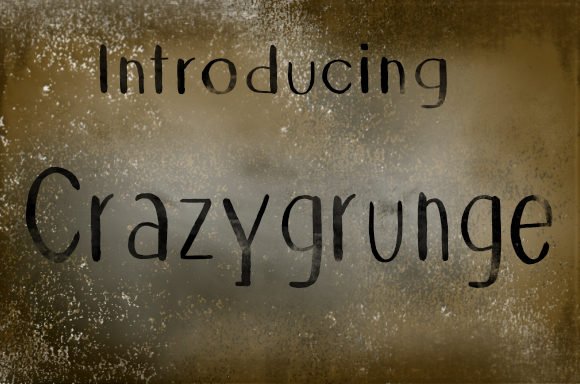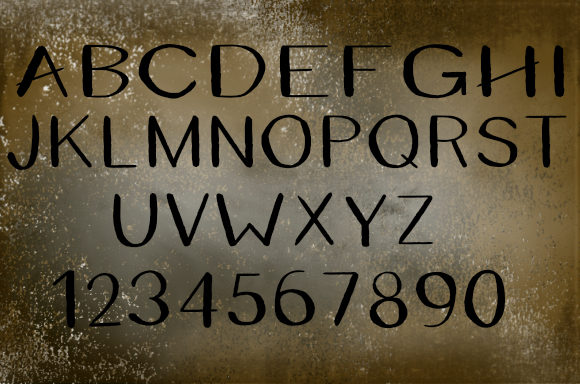
Get Ready to Unleash Your Dark Side
As a designer, have you ever stared at a blank canvas, trying to conjure up the perfect font to match your eerie mood? You’re not alone. We’ve all been there, searching for that one font that screams “spooky season” and sets the tone for our twisted creations.
That’s where the Crazygrunge Font comes in – a handwritten masterpiece that’s perfect for unleashing your dark side. With its bold, uneven strokes and eerie charm, this font is a must-have for designers looking to create haunting horror-themed designs that will leave a lasting impression.
Whether you’re designing a horror movie poster, a spooky Halloween invitation, or a gothic-inspired website, the Crazygrunge Font is a valuable tool that will add an extra layer of depth and atmosphere to your work. So why settle for a generic font when you can unleash the darkness with the Crazygrunge Font?
Crazygrunge Font Key Features
- Font Family: Crazygrunge
- Size: 128 glyphs (including uppercase and lowercase letters, numbers, and punctuation)
- Resolution: High-resolution font, suitable for print and digital use at 300 DPI or higher
- Unique Characteristics: Distressed, grungy texture with irregularities and imperfections, giving a worn and vintage feel
- Language Support: Multilingual support, including Latin, Cyrillic, and Greek alphabets
Crazygrunge Font Review
I recently had the chance to work with the Crazygrunge Font, and I have to say it’s an interesting piece of typography. Here are my thoughts:
- The font’s distressed aesthetic is well-executed, giving it a unique and gritty feel that’s perfect for edgy designs.
- The font’s compatibility with various software and platforms is seamless, making it easy to integrate into your workflow.
- The font’s customization options, such as adjusting the level of distortion, are a great touch for designers who want to fine-tune their look.
- The font may be too bold and overpowering for certain designs, so use it sparingly to avoid overwhelming the viewer.
- The font’s readability can be compromised at smaller font sizes, so be mindful of legibility when using it for body text.
- The font’s consistency across different weights and styles can be inconsistent, which may be a concern for designers who value precision.
The Crazygrunge Font is a solid addition to any designer’s toolkit, especially for those who work with bold, edgy designs. While it has some limitations, its unique aesthetic and customization options make it a valuable resource for the right projects.
Tips for Getting the Most Out of Crazygrunge Font
To get the most out of Crazygrunge Font, try the following:
- Combine it with bold or italic text for added emphasis.
- Use it in conjunction with other distressed or grunge fonts for a unique look.
- Experiment with different font sizes and colors to create a visually appealing design.
Crazygrunge Font is commonly used in:
- Rock music and concert posters.
- Apply the Crazygrunge Font to the title of the festival using a bold weight.
- Add a drop shadow effect to give the text a sense of depth and dimension.
- Use a color scheme that reflects the grunge aesthetic, such as muted earth tones and dark colors.
- Pair the Crazygrunge Font with a distressed texture or a woodgrain background to add to the grunge vibe.
- Use bold, colorful graphics to represent the music acts performing at the festival.
- Include a call-to-action, such as “Get Tickets Now” or “Join the Festival,” in a clean, easy-to-read font to balance out the grunge aesthetic.
- Apply the Crazygrunge Font to the title of the zine using a bold weight.
- Add a hand-drawn or hand-painted effect to give the text a sense of imperfection and uniqueness.
- Use a muted color scheme that reflects the DIY aesthetic, such as pastel colors or neutral tones.